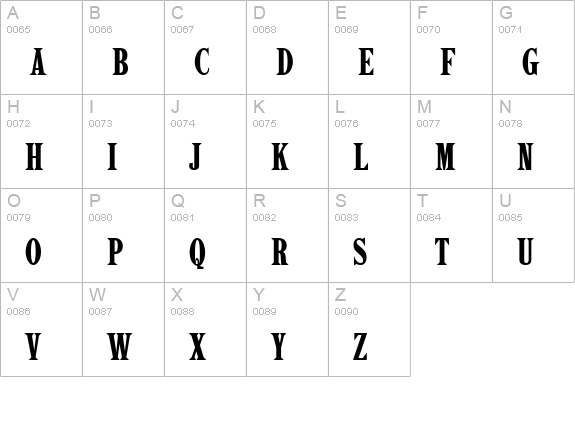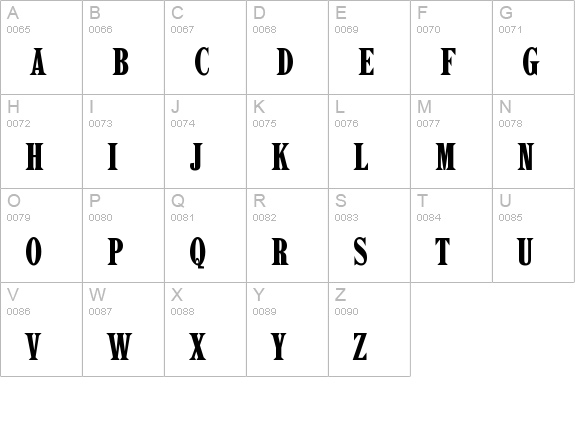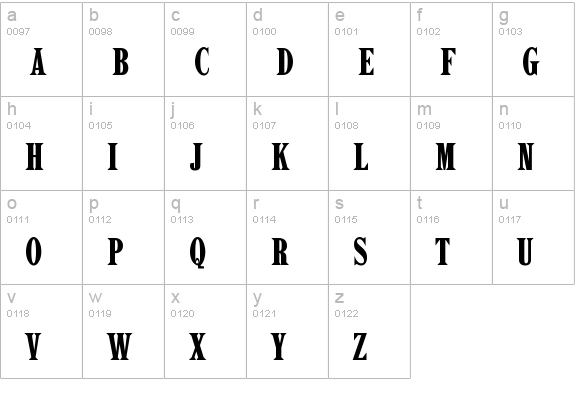
LatinComD Font Details
LatinComD is a stunning font that beautifully blends classic Latin typography with a modern twist. Its elegant and sophisticated design captures the essence of timeless beauty, making it the perfect choice for any project that requires a touch of elegance and refinement. With its clean and crisp lines, LatinComD exudes professionalism and style. It is an incredibly versatile font that can be used for a wide range of applications, from branding and logo design to advertising and editorial projects. Its legibility and readability make it ideal for both print and digital media, ensuring that your message is conveyed with clarity and impact. One of the most remarkable features of LatinComD is that it is available for free download at FontsMarket.com. This means that you can access this exceptional font without any cost, making it an even more attractive option for designers, creatives, and anyone looking to add a touch of elegance to their projects. LatinComD is meticulously crafted with attention to detail, ensuring that every letter and character is perfectly balanced and harmonious. Its smooth curves and precise letterforms create a sense of harmony and unity, making it a pleasure to read and work with. Whether you are designing a logo for a luxury brand, creating a magazine layout, or designing a wedding invitation, LatinComD will elevate your design to new heights. It is a font that exudes sophistication and refinement, making it a truly timeless choice. Discover the beauty and elegance of LatinComD today by downloading it for free at FontsMarket.com. Experience the power of this exceptional font and unlock a world of endless possibilities for your design projects.